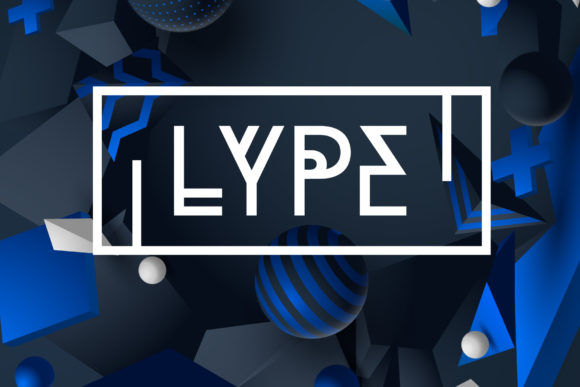
Unleash your creativity with "Lype," the font that will transform your designs into masterpieces!
Crafted by the talented ochakov, Lype is a display font that exudes cool sophistication and geometric precision. Whether you're designing eye-catching web pages, professional business cards, or any endeavor that demands a touch of uniqueness, this font will elevate your creations to new heights.
Lype's crisp lines and sharp angles create a striking visual impact that will captivate your audience. Imagine your designs soaring to new heights with this font that demands attention and admiration. Unleash your imagination and let Lype guide you towards extraordinary design possibilities.
Specifically tailored for those who dare to stand out in the bustling world of fashion, Lype is the perfect font for your clothing line. Its distinct character will add a touch of exclusivity and sophistication to your designs, making your brand shine brighter than ever before. Create logos, marketing materials, and packaging that will leave a lasting impression on your customers.